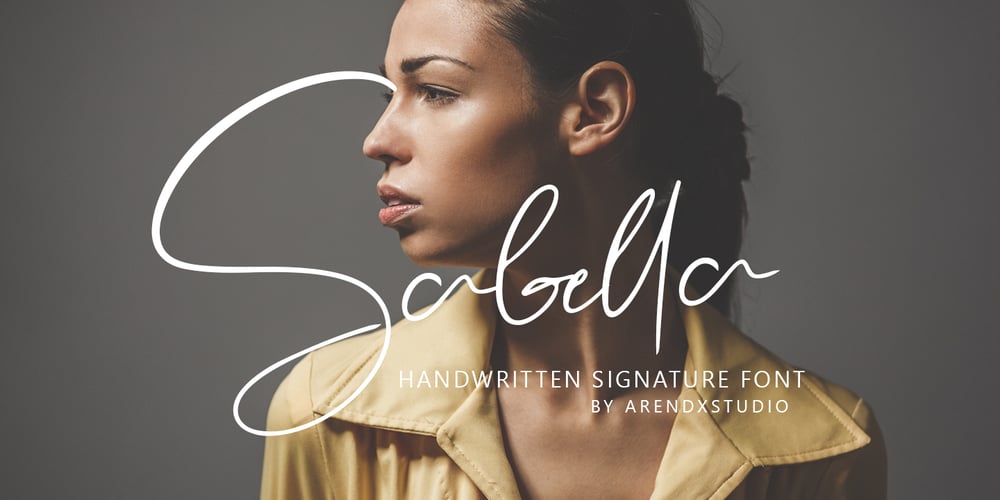
Sabella
Sabella font
Sabella Font Family was designed by Asep Rendi and published by Arendxstudio. Sabella contains 1 styles and family package options. Sabella is luxurious and casual script with distinctive style that is perfect for your branding design, and will also be very beautiful in your wedding invitations and business cards and especially for your brand name logotype. Sabella has beautiful Uppercase and Lowercase, figures and ligature standards that are very realistic.